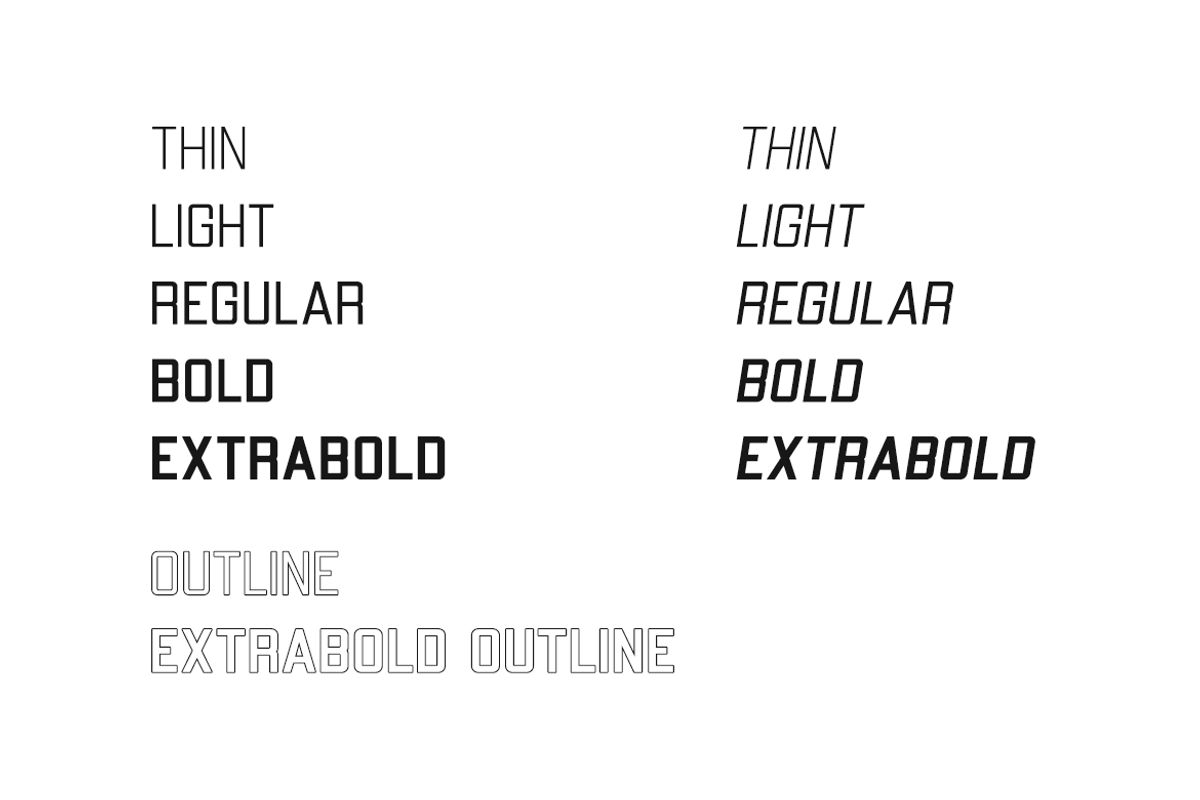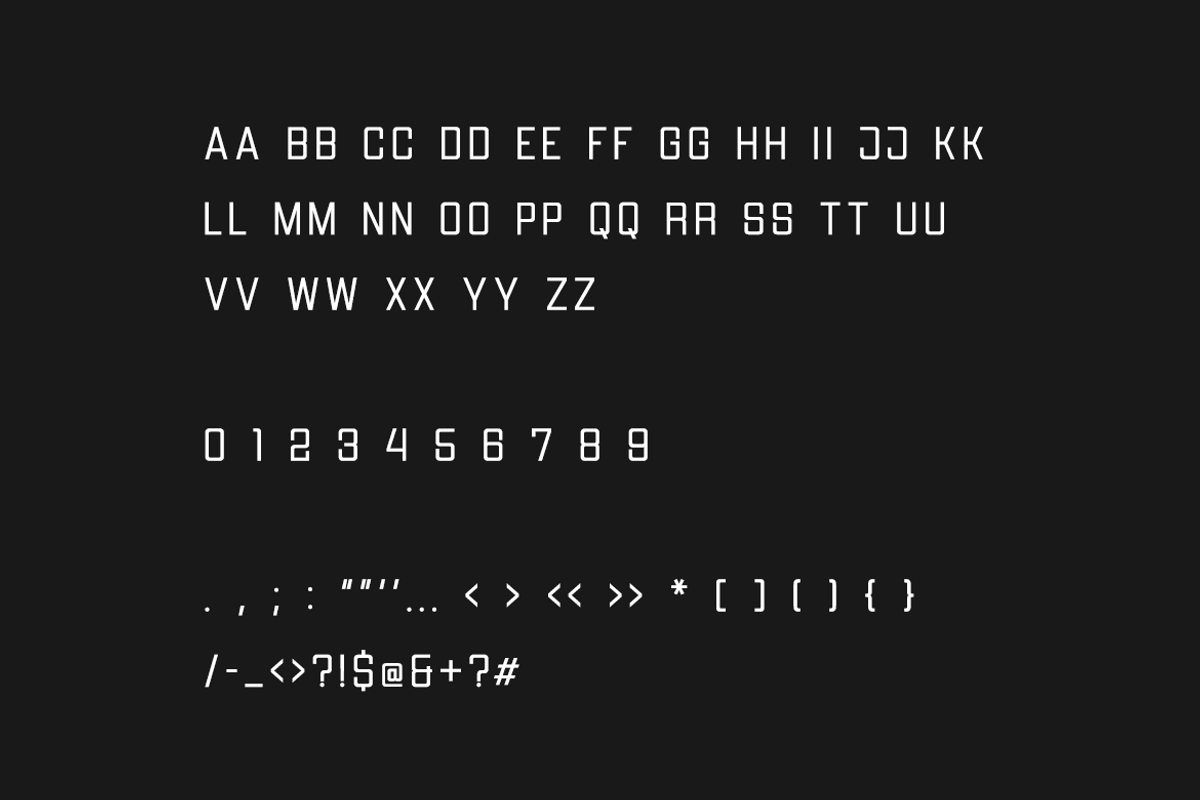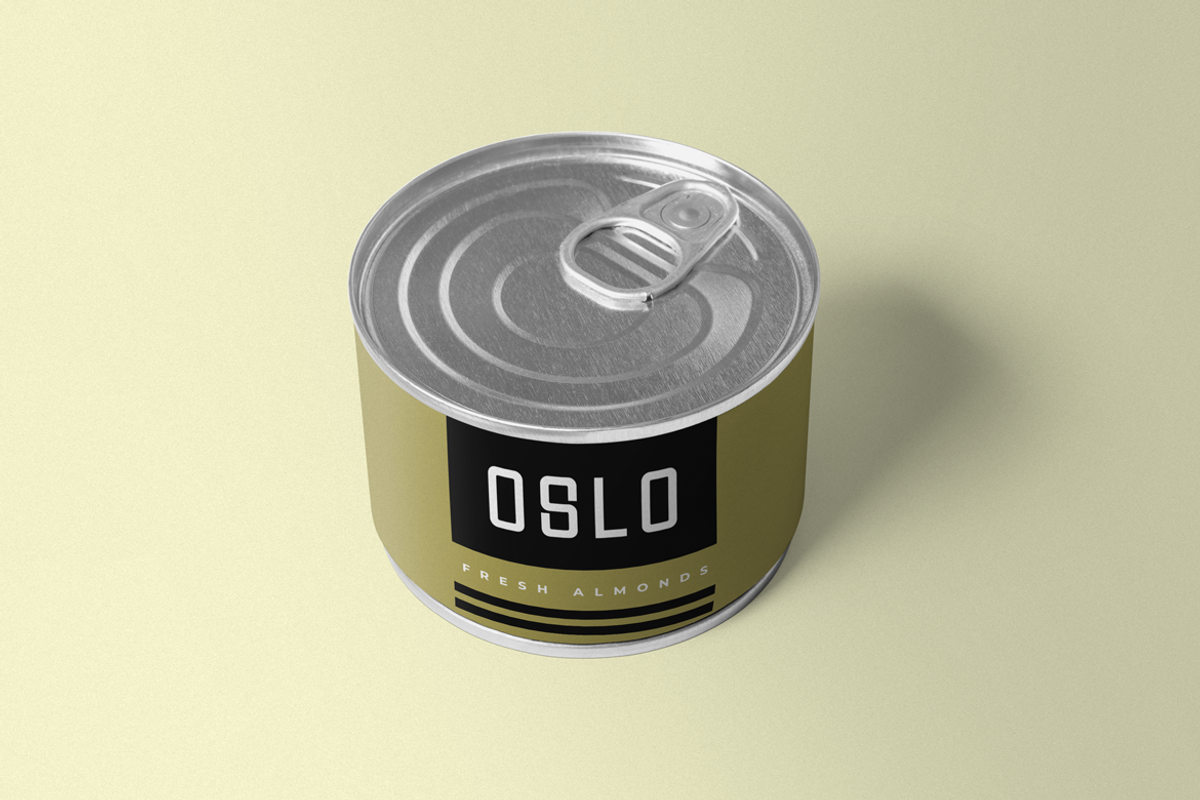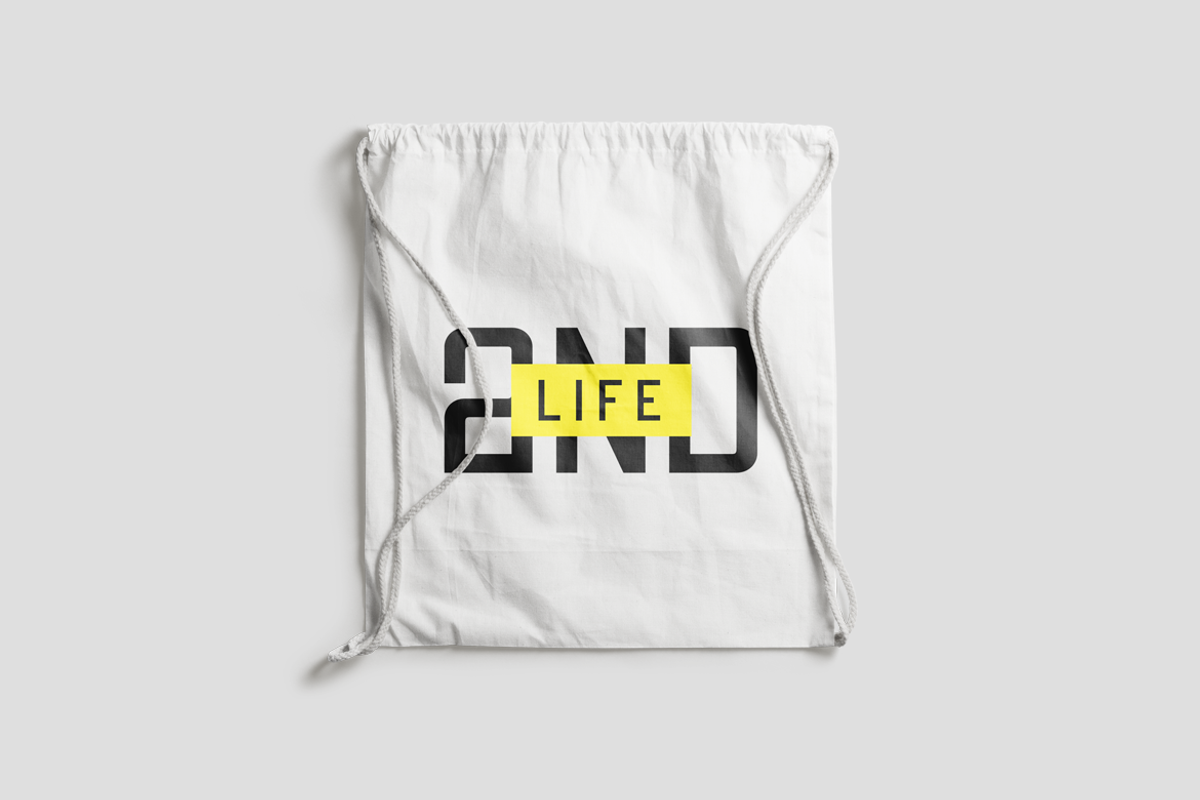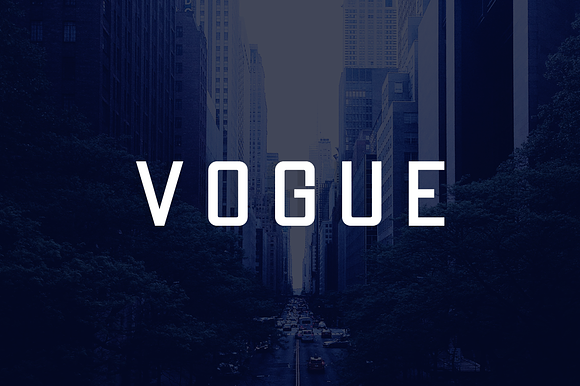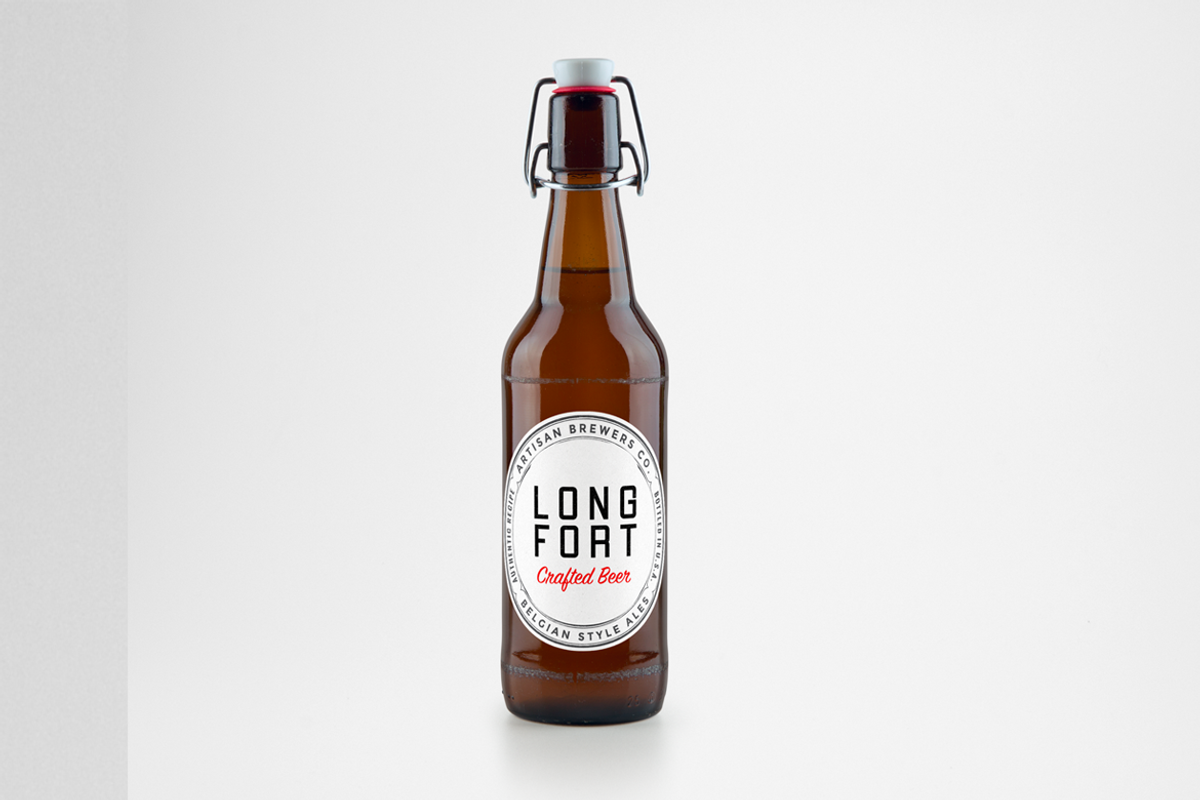
VOGUE - Display / Headline Typeface
VOGUE, a modern all-caps display typeface with a character of it's own. This typeface is perfect for headlines, big text, branding, logotypes & display usage. Also suitable for creating outstanding logos, promotional content and marketing graphics that can really grab attention from your visitors. Please see the examples shown above to get an idea about the capability of this typeface.
VOGUE comes with 5 weights (Thin, Light, Regular, Bold & ExtraBold) along with italic versions of all weights, also 2 outline versions (Regular Outline, ExtraBold Outline). The typeface family contains OTF, TTF and Web Fonts (all EOT, SVG, TTF, WOFF, WOFF2 everything is included).